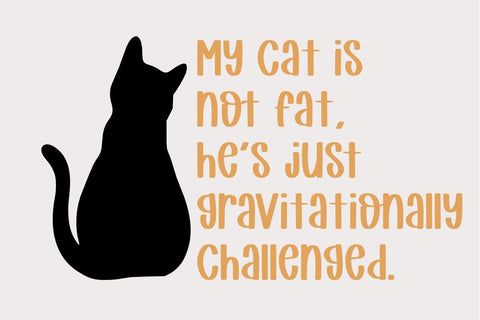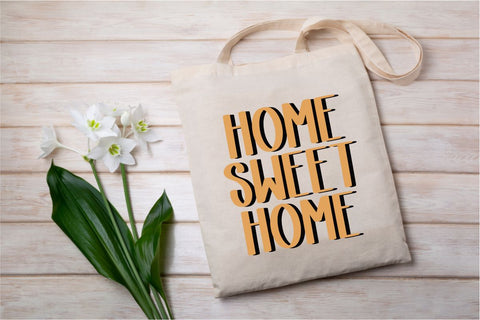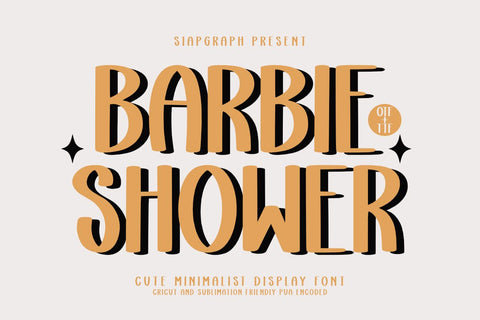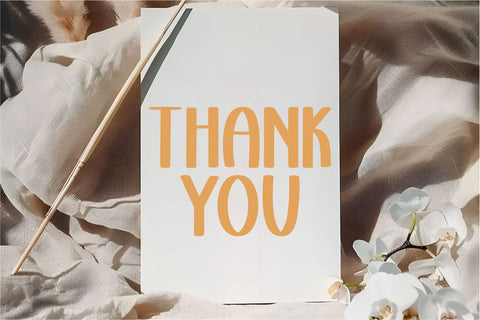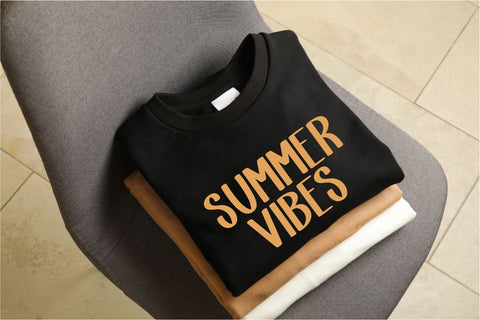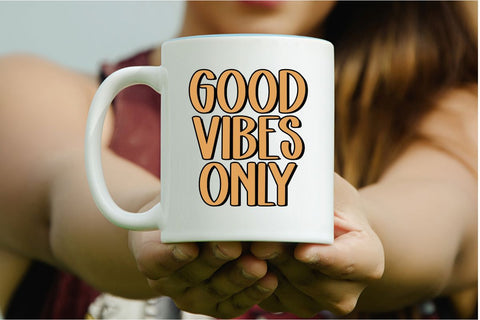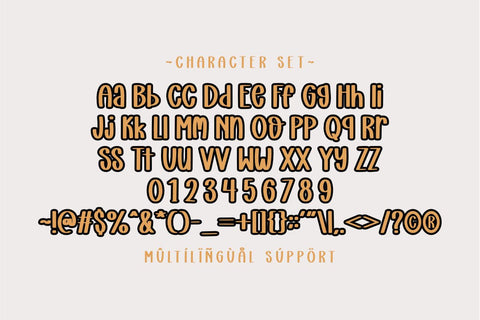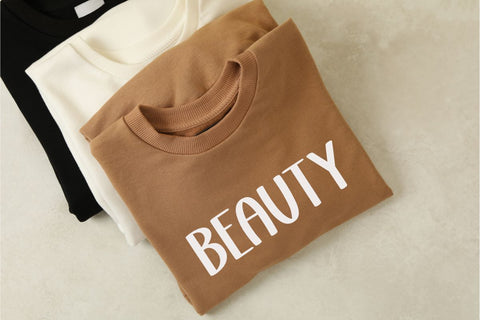
Barbie Shower - Cute Display Font
Barbie Shower is a cute minimalist display font designed specifically for creative needs such as sublimation, printable design, crafting, and DIY projects. With playful and unique letter characters, this font is perfect for invitation designs, labels, greeting cards, stickers, and other digital decorations. It supports PUA Encoded, and is available in OTF & TTF formats, making it easy to use in Cricut, Silhouette, and other design software.